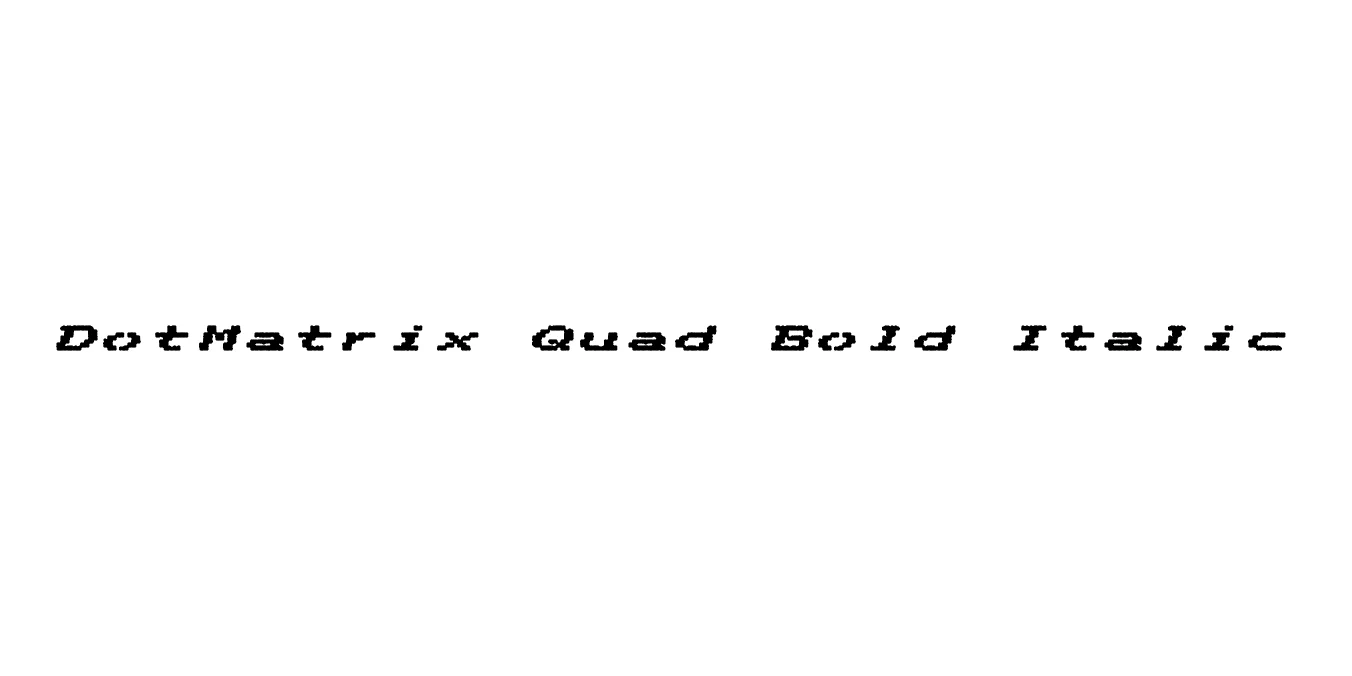
DotMatrix Quad Bold Italic
Designed by Fontry Digital
DotMatrix Quad Bold Italic is a specialized display typeface designed to mimic the aesthetic of early digital printing and LED displays. Its structure is built upon a rigid grid of pixels or dots, arranged in a quadruple-density pattern to ensure readability even with its stylized slant. The italicized slant adds a sense of motion and urgency, making it a favorite for designs that require a retro-technological or industrial feel.
Historically, this font draws inspiration from the output of impact printers and primitive computerized signage from the 1980s and 1990s. By combining the bold weight with the quad-dot architecture, the typeface offers a high-impact visual that bridges the gap between vintage computing and modern pixel art. It is particularly effective in headers where a mechanical, systematic look is desired.
DotMatrix Quad Bold Italic Best Uses
Perfect for airport or train station style digital displays.
Ideal for retro-style UI and HUD elements.
Works well for tech startups looking for a nostalgic 80s aesthetic.
Great for unique posters or flyers with a mechanical theme.